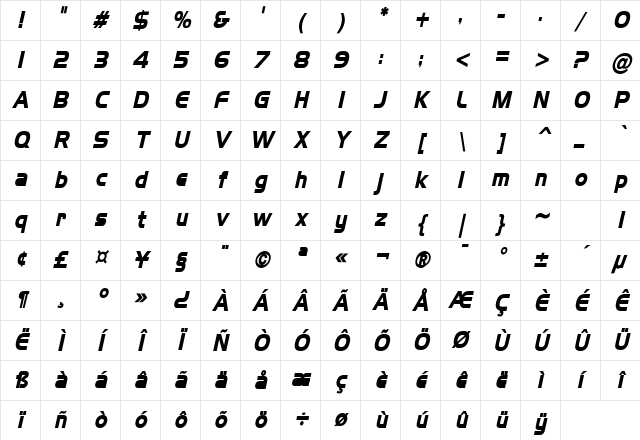
Complete Hanzel Condensed Bold Italic glyph index. Displaying only characters natively supported by Hanzel Condensed Bold Italic font.
Hanzel Condensed is a composed and adaptable typeface that performs quietly and consistently across a wide range of design contexts. The slanted form adds forward momentum and visual energy. Its bold stroke weight gives it real presence on the page. Its narrow stance lets it pack a punch even in space-constrained designs.